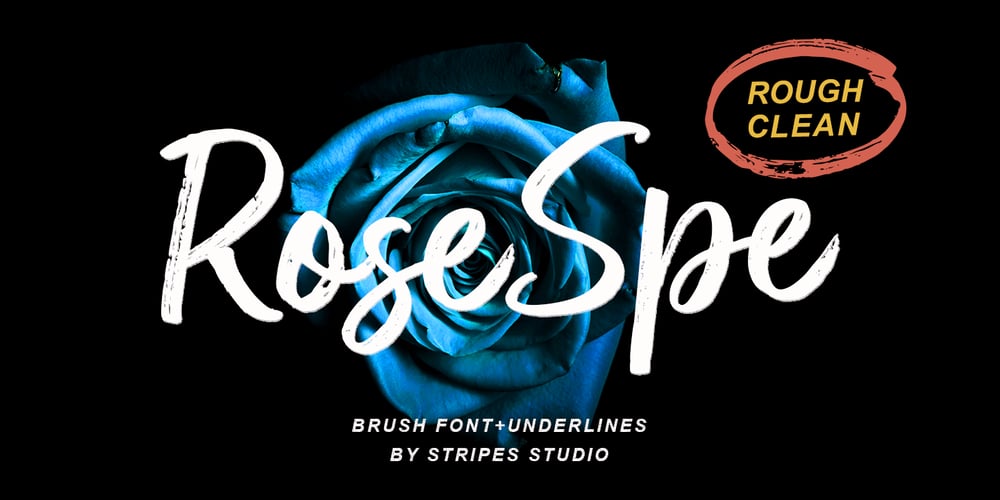
Rose Spe
Rose Spe font
Rose Spe Font Family was designed by Yur Lis and published by Stripes Studio. Rose Spe contains 4 styles and family package options. Rose Spe Brush is a super casual hand brushed script with detailed brush stroke texture, and a quirky, Can be used for various purposes. such as the title, signature, letterhead, signage, labels, newsletters, posters, logos, correspondence, wedding invitations, badges, etc.